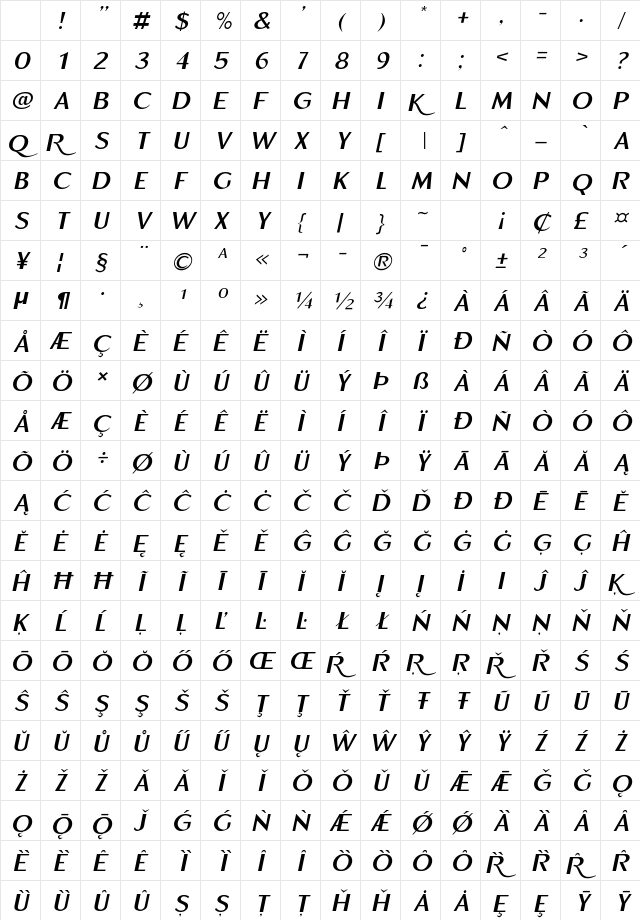
Complete Emerald Crown Light Italic glyph index. Displaying only characters natively supported by Emerald Crown Light Italic font.
Emerald Crown Light is a composed and adaptable typeface that performs quietly and consistently across a wide range of design contexts. The slanted form adds forward momentum and visual energy. Its slender proportions lend an understated elegance to any composition.
Pro Tip: Use Emerald Crown Light for emphasis, pull quotes, and subheadings where its slanted energy can add rhythm to the layout.